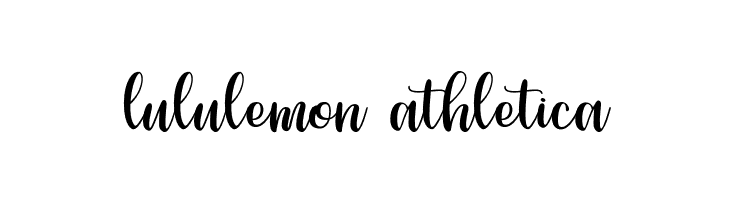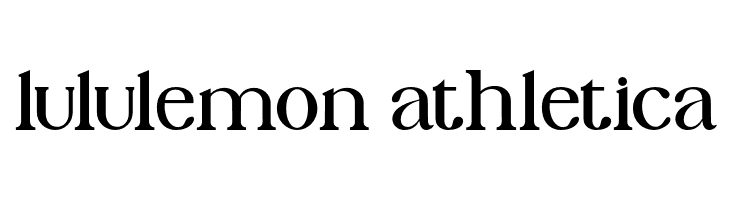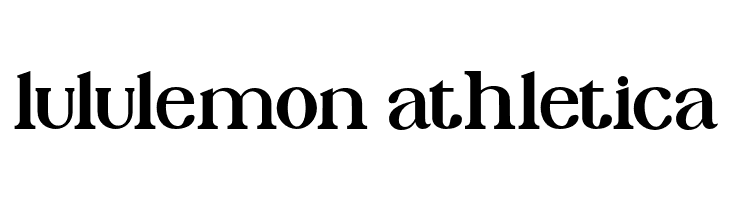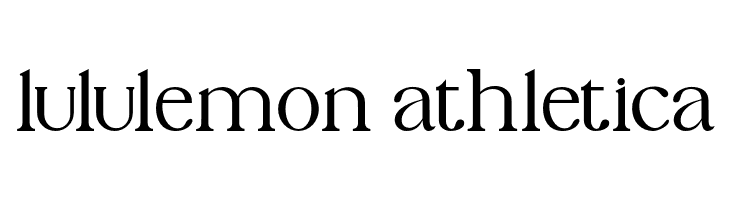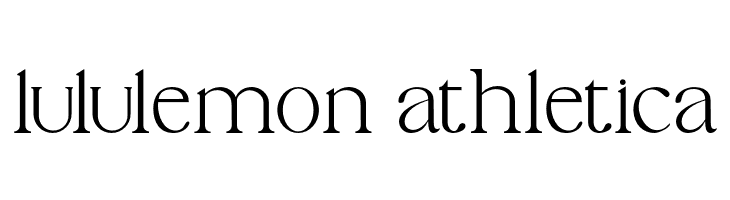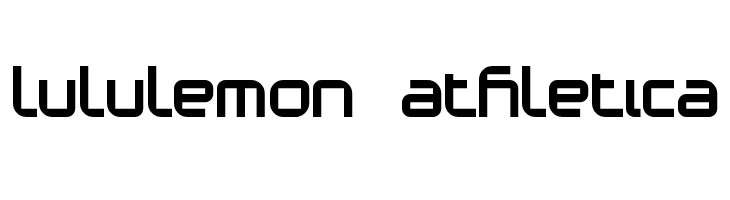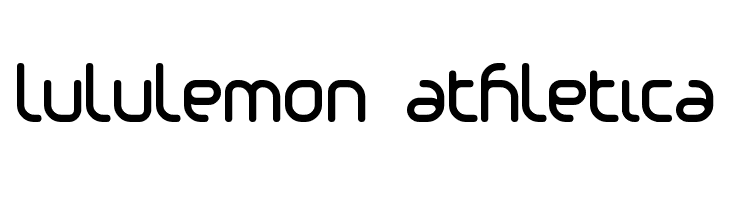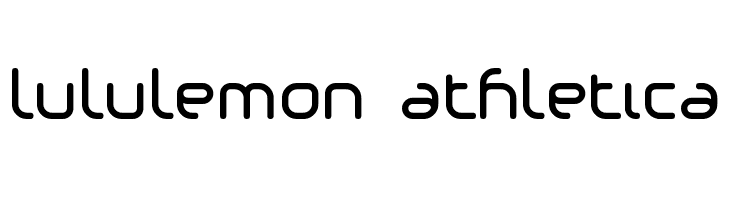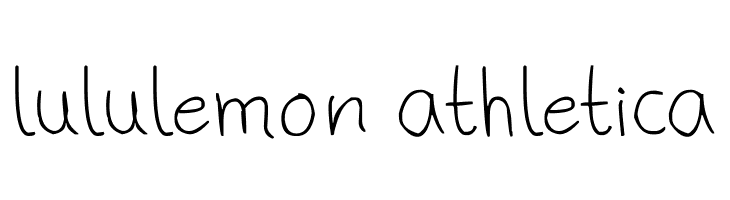
A classic serif font with elegant, elongated serifs and refined letterforms.
A classic serif font with refined elegance and sophisticated style.
A classic serif typeface with elegant curves and sharp serifs.
A classic serif typeface with semi-bold weight, offering elegance and readability.
A modern, rounded font with geometric structure and uniform width.
A modern, rounded font with smooth curves and consistent stroke widths.
A modern, geometric font with consistent stroke width and rounded edges.
A charming and elegant script font with flowing, cursive letters.
A casual, handwritten font with smooth, fluid strokes and a playful appearance.